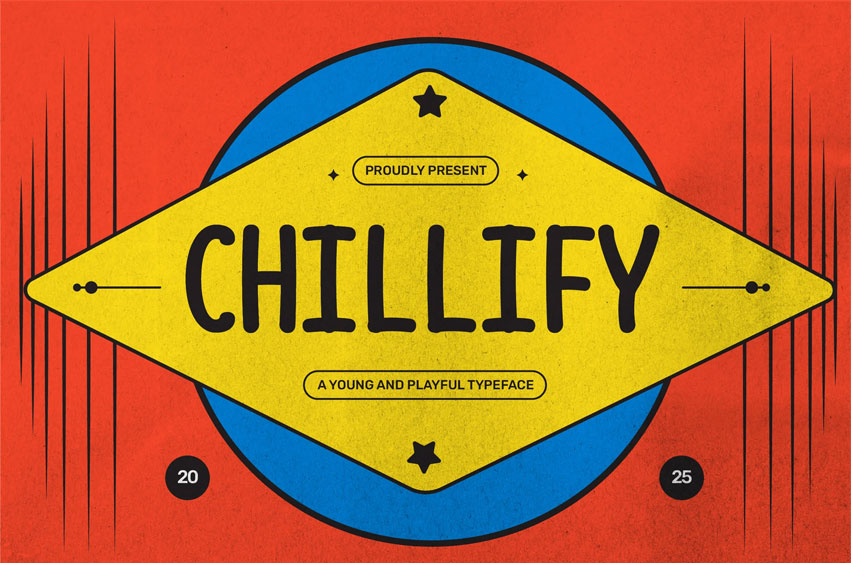
Chilify Font Monospace – Playful Bold Font is a fun and energetic typeface designed to bring youthful charm and bold character to your creative projects. Featuring rounded edges, quirky shapes, and a clean monospace structure, Chilify infuses your designs with a cheerful, approachable vibe—perfect for standout playful themes and lively modern designs.
Whether you’re working on a children’s book, playful poster, or fun product packaging, Chilify offers the perfect balance of clarity and vibrant personality. Its bold yet friendly forms make it ideal for logos, branding, advertising, social media graphics, website headers, and eye-catching marketing materials.
- Playful & Bold Design: Rounded, quirky shapes with a friendly feel.
- Monospace Structure: Consistent spacing for a clean, modern look.
- Complete Character Set: Uppercase, lowercase, numbers, punctuation, symbols.
- Multilingual Support: Supports multiple languages, including English, Spanish, French, German, and Portuguese.
Chilify Monospace combines youthful energy and bold simplicity to create a typeface that stands out while remaining versatile. Whether for branding, digital content, or editorial work, Chilify adapts seamlessly to uplift your designs with its fun and spirited style.
- Brand Identity: Add a cheerful, youthful spark to your brand.
- Advertising & Marketing: Draw attention with bold, friendly headlines.
- Editorial Design: Make engaging magazine spreads and children’s content.
- Product Packaging: Stand out with fun and approachable visuals.
- Logo Design: Craft a memorable and vibrant brand signature.